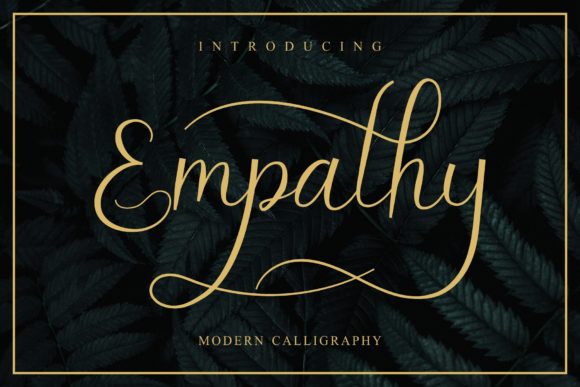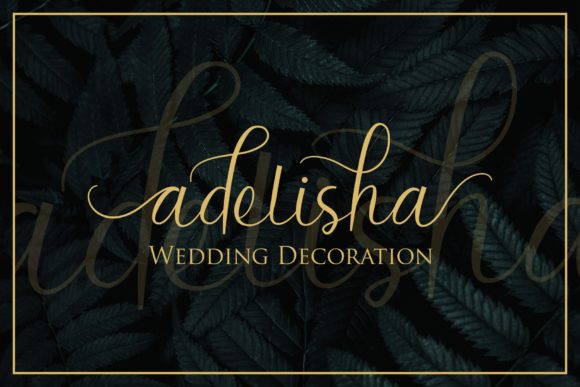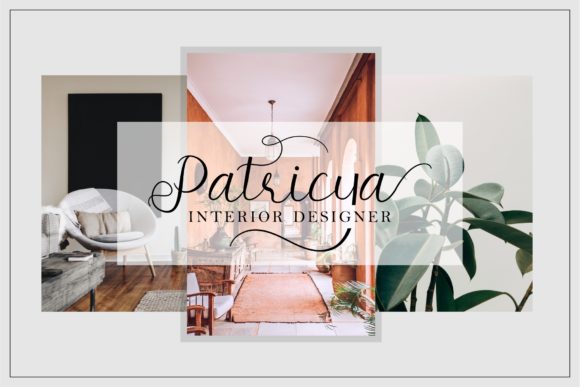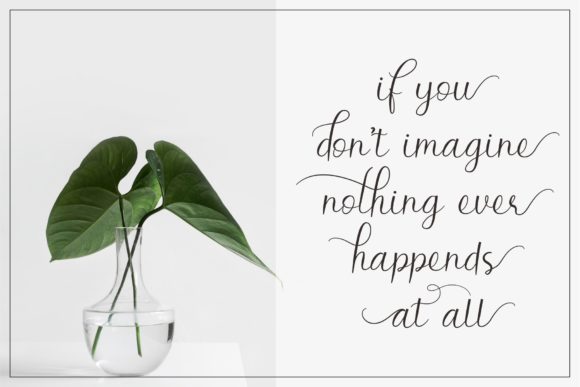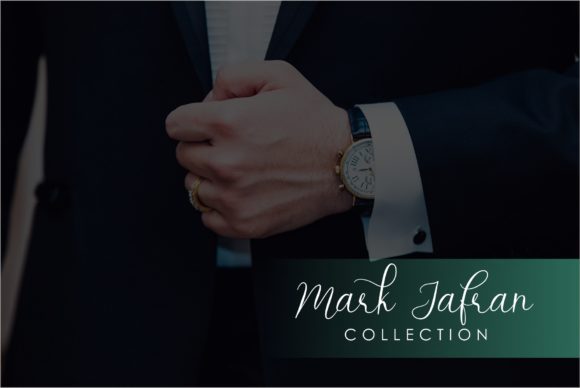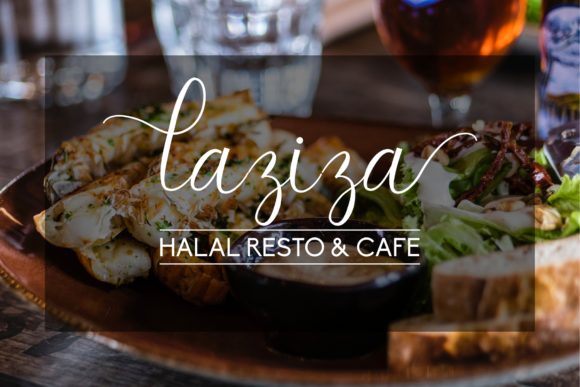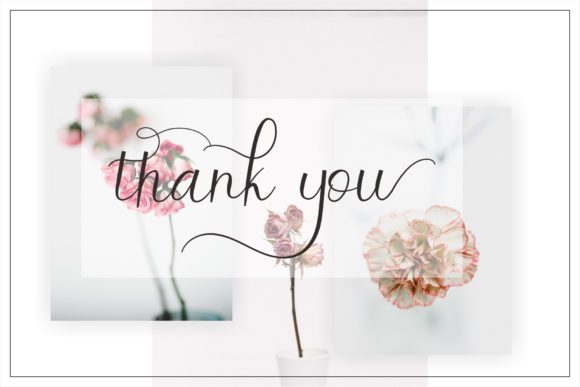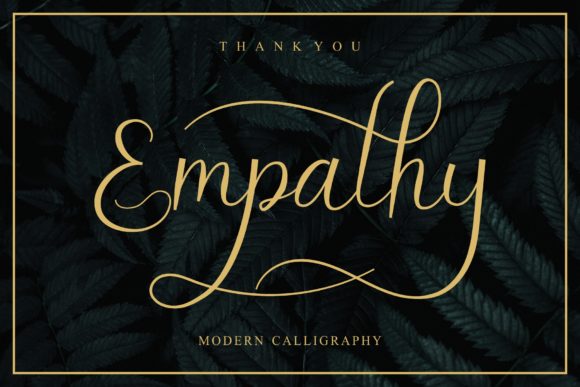
Empathy Font
About Empathy Font
The Empathy is a beautiful script font. It has a classy, elegant, and modern look which can be used for logos, branding, invitations, stationaries, wedding designs, social media posts, and every other design which needs a natural handwritten touch. Layer them with different colors and turbidity to get a million different feels.